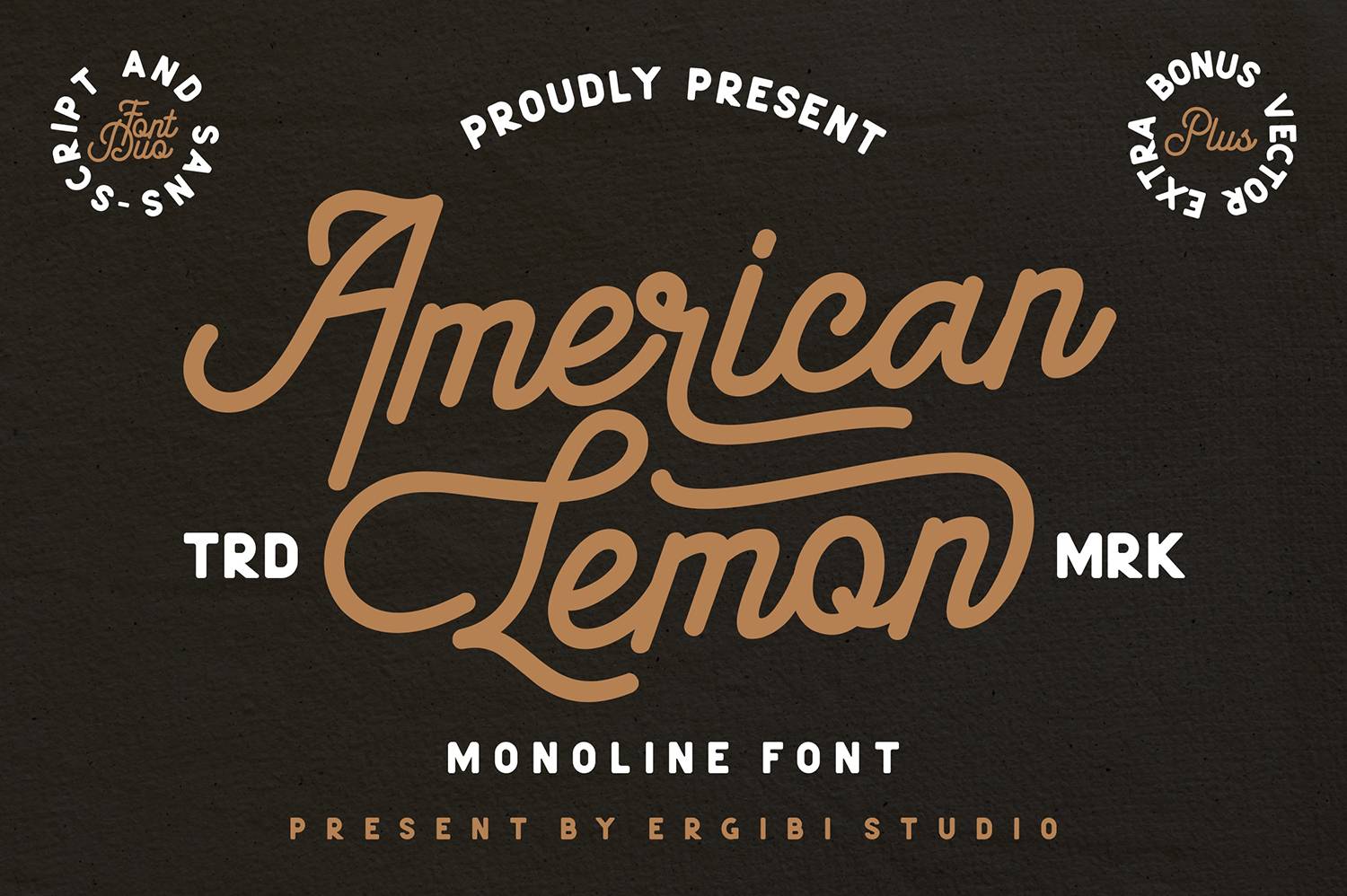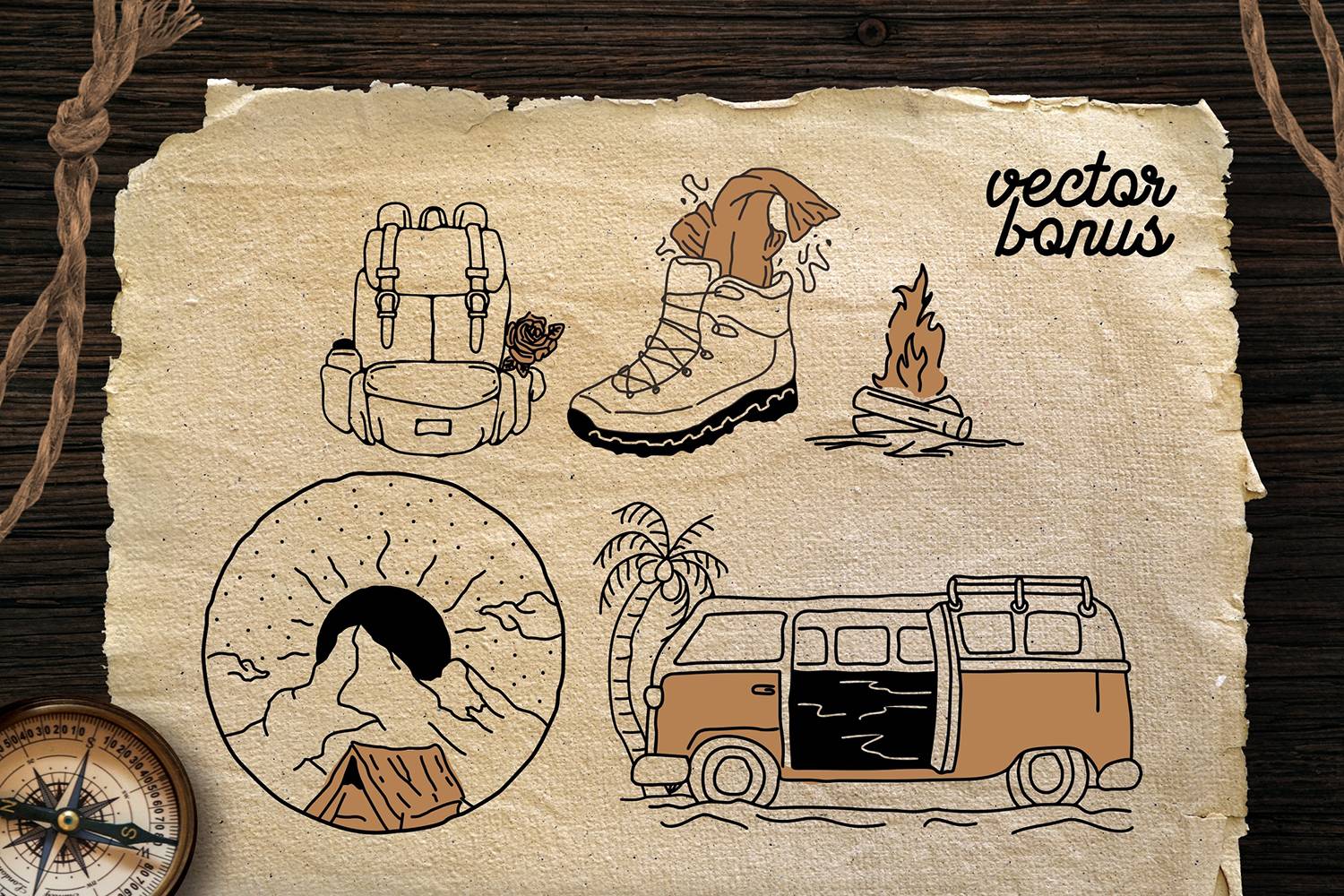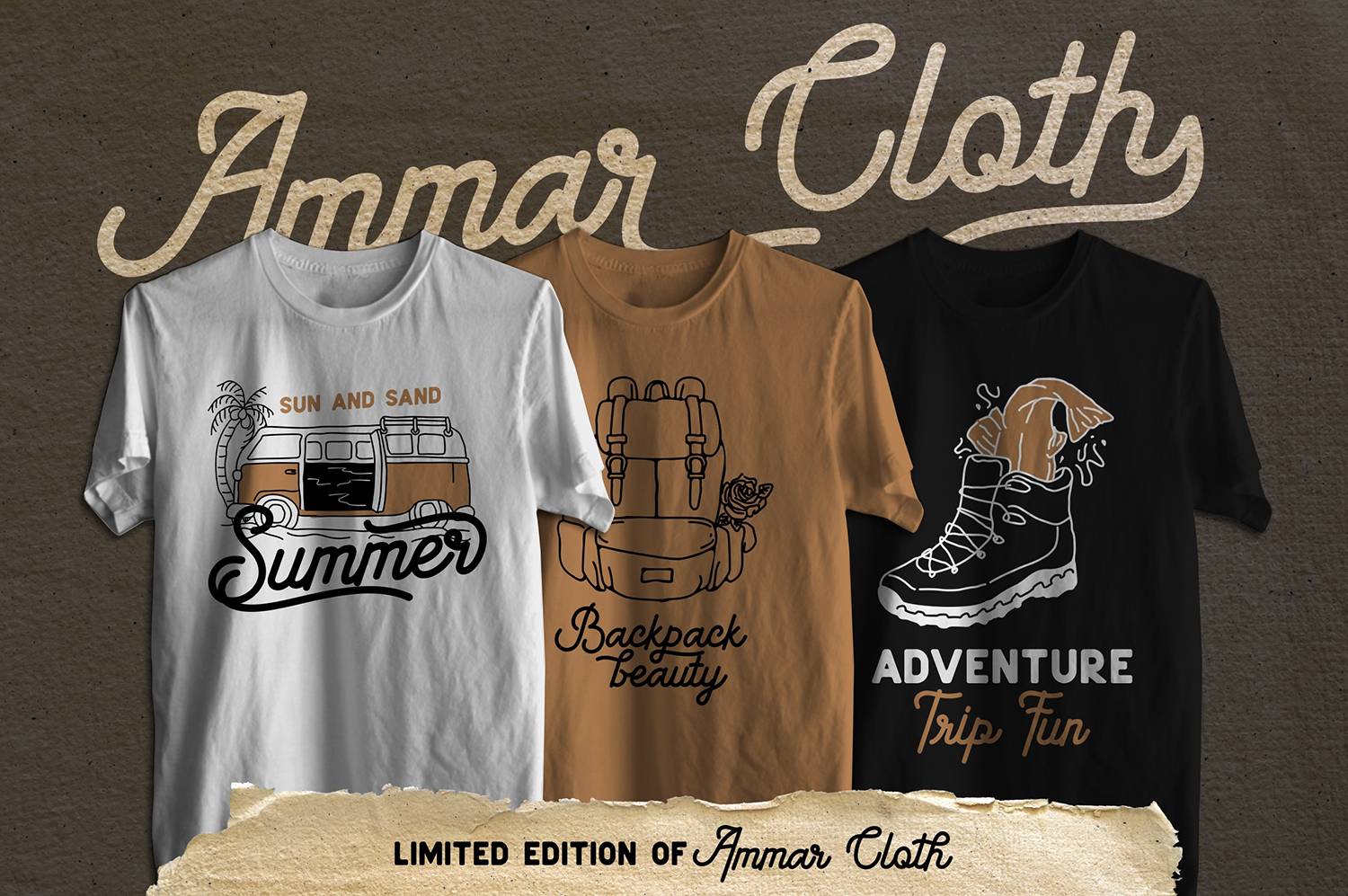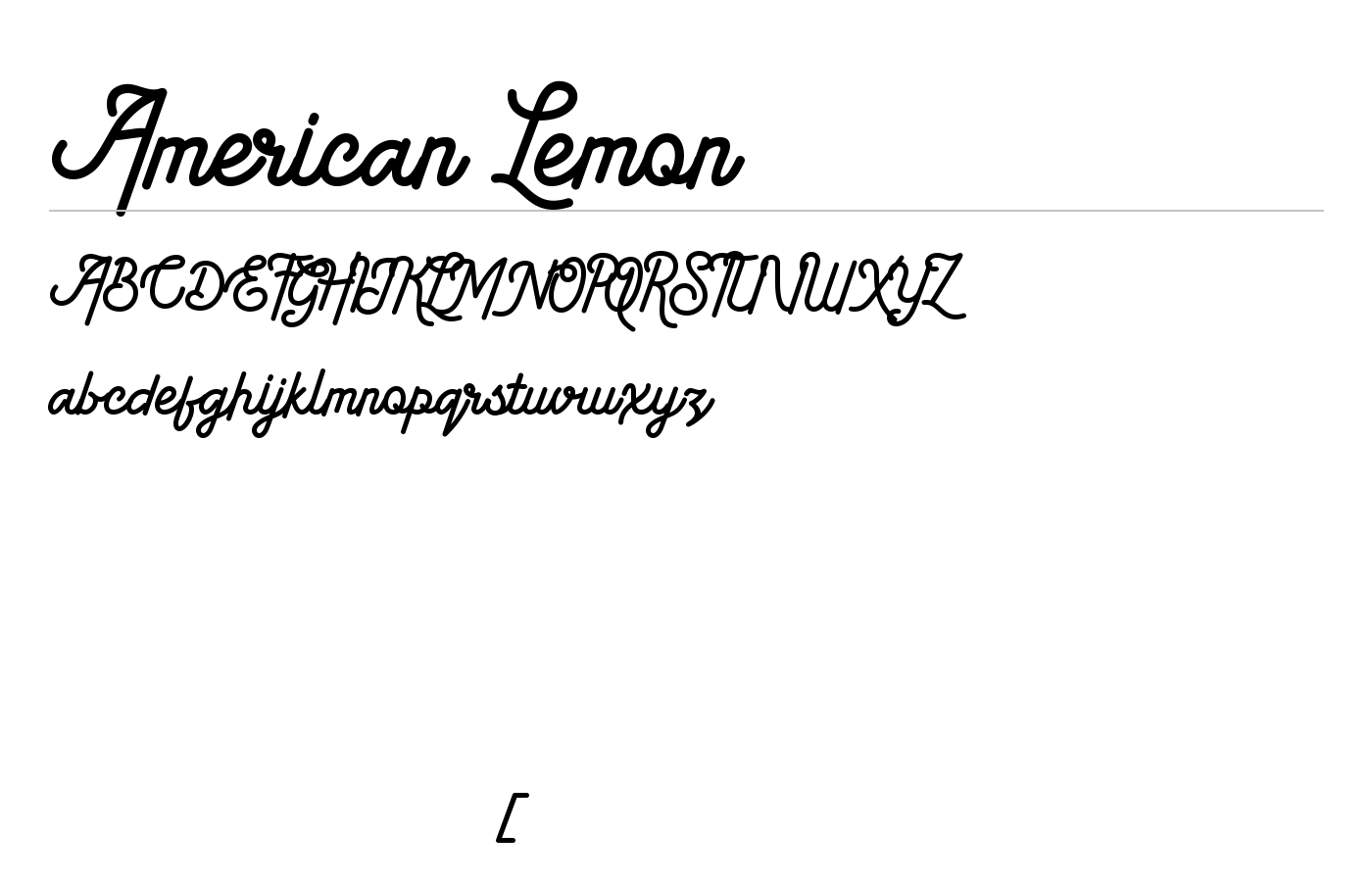
American Lemon is a playful and elegant script font with a vintage flair, featuring smooth, connected strokes and a casual handwritten feel. Its thin, flowing letterforms and slight slant make it perfect for adding a personal, stylish touch to logos, invitations, and branding that aim for a warm, nostalgic atmosphere. This font works especially well in designs seeking charm and sophistication without being overly formal.
American Lemon Font
About American Lemon Font
| Font family | American Lemon Font |
| Designer | Riyadh Rahman |